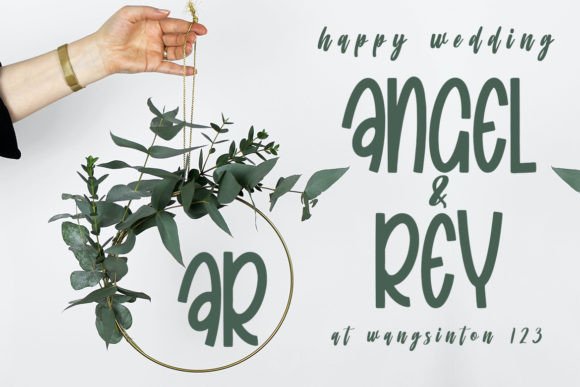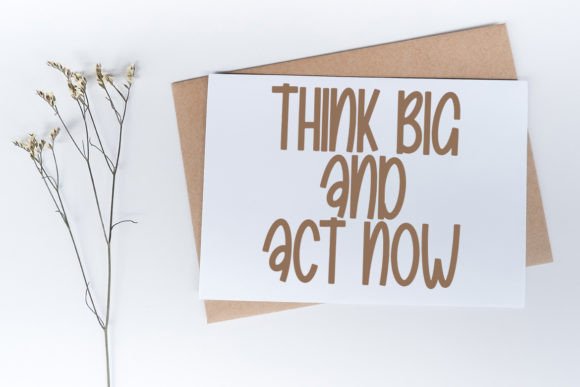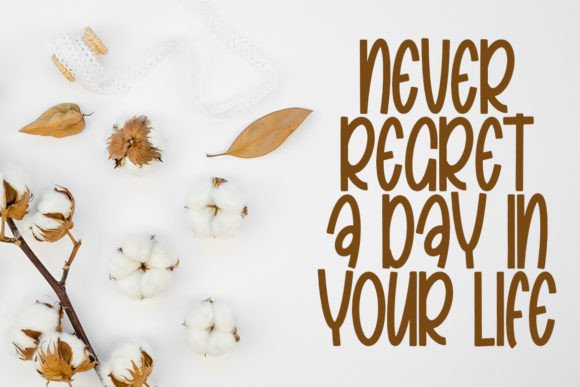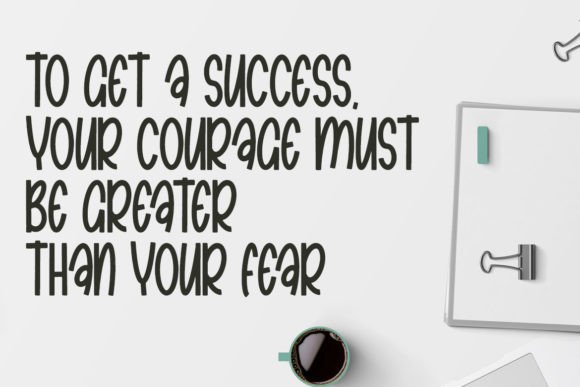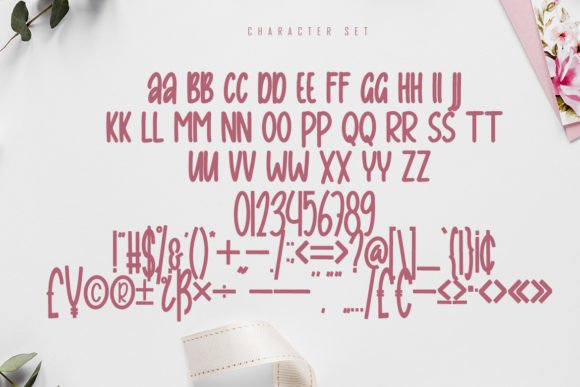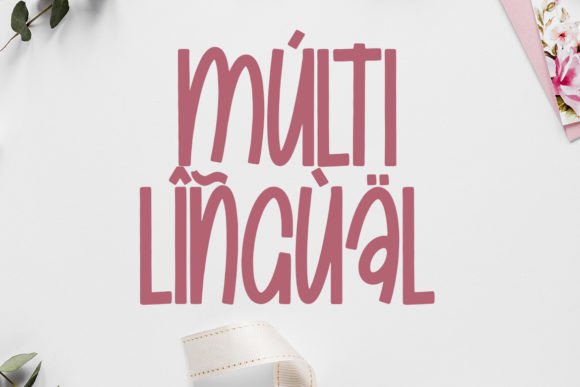
Introducing Carila Font: Elevate Your Designs with Elegance and Sophistication
In the world of typography, fonts play a crucial role in conveying the tone and personality of a brand or design. For designers and crafters seeking a stylish and modern sans serif font, Carila Font is an excellent choice. With its elegant, classy, and contemporary look, Carila is perfect for a wide range of applications, from fashion and signatures to logos, magazines, and social media posts.
What Makes Carila Font Stand Out?
Carilais is a stylish sans serif font that boasts a unique blend of sophistication and modernity. Its clean lines, precise curves, and balanced proportions make it an ideal choice for designers looking to add a touch of elegance to their work. Whether you’re creating a fashion brand, designing a logo, or crafting a social media post, Carila Font is sure to impress.
Key Features of Carila Font
- Elegant and Classy Design: Carila Font features a sleek and sophisticated design that exudes elegance and refinement.
- Modern Look: With its clean lines and precise curves, Carila Font has a distinctly modern aesthetic that’s perfect for contemporary designs.
- Versatile: Carila Font is suitable for a wide range of applications, including fashion, signatures, logos, magazines, social media posts, and more.
- Easy to Read: The font’s clear and balanced design makes it easy to read, even at small sizes.
Use Cases for Carila Font
Carila Font is an incredibly versatile font that can be used in a variety of contexts. Here are some examples of how you can use Carila Font to elevate your designs:
- Fashion Brands: Use Carila Font to create a stylish and sophisticated brand identity for your fashion label.
- Signatures and Logos: Carila Font is perfect for creating elegant signatures and logos that make a lasting impression.
- Magazines and Editorials: Add a touch of elegance to your magazine or editorial design with Carila Font.
- Social Media Posts: Use Carila Font to create visually appealing social media posts that stand out from the crowd.
Tips for Using Carila Font
To get the most out of Carila Font, here are some tips to keep in mind:
- Pair with Other Fonts: Experiment with pairing Carila Font with other fonts to create a unique and visually appealing design.
- Use Different Weights: Use different weights of Carila Font to add hierarchy and emphasis to your design.
In conclusion, Carila Font is a stylish and modern sans serif font that’s perfect for designers and crafters looking to add a touch of elegance to their work. With its elegant design, versatility, and ease of use, Carila Font is an excellent choice for a wide range of applications. Whether you’re creating a fashion brand, designing a logo, or crafting a social media post, Carila Font is sure to impress.